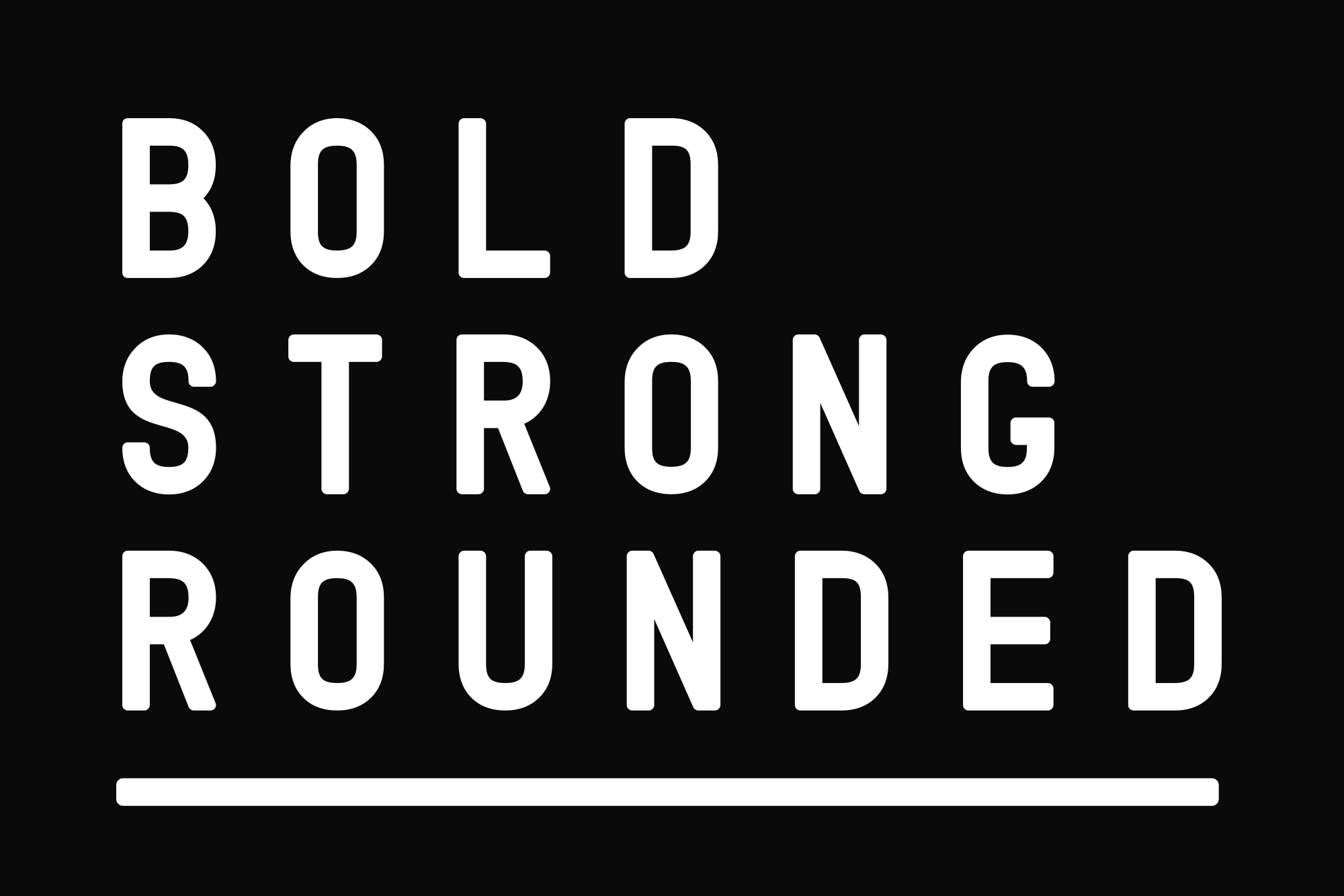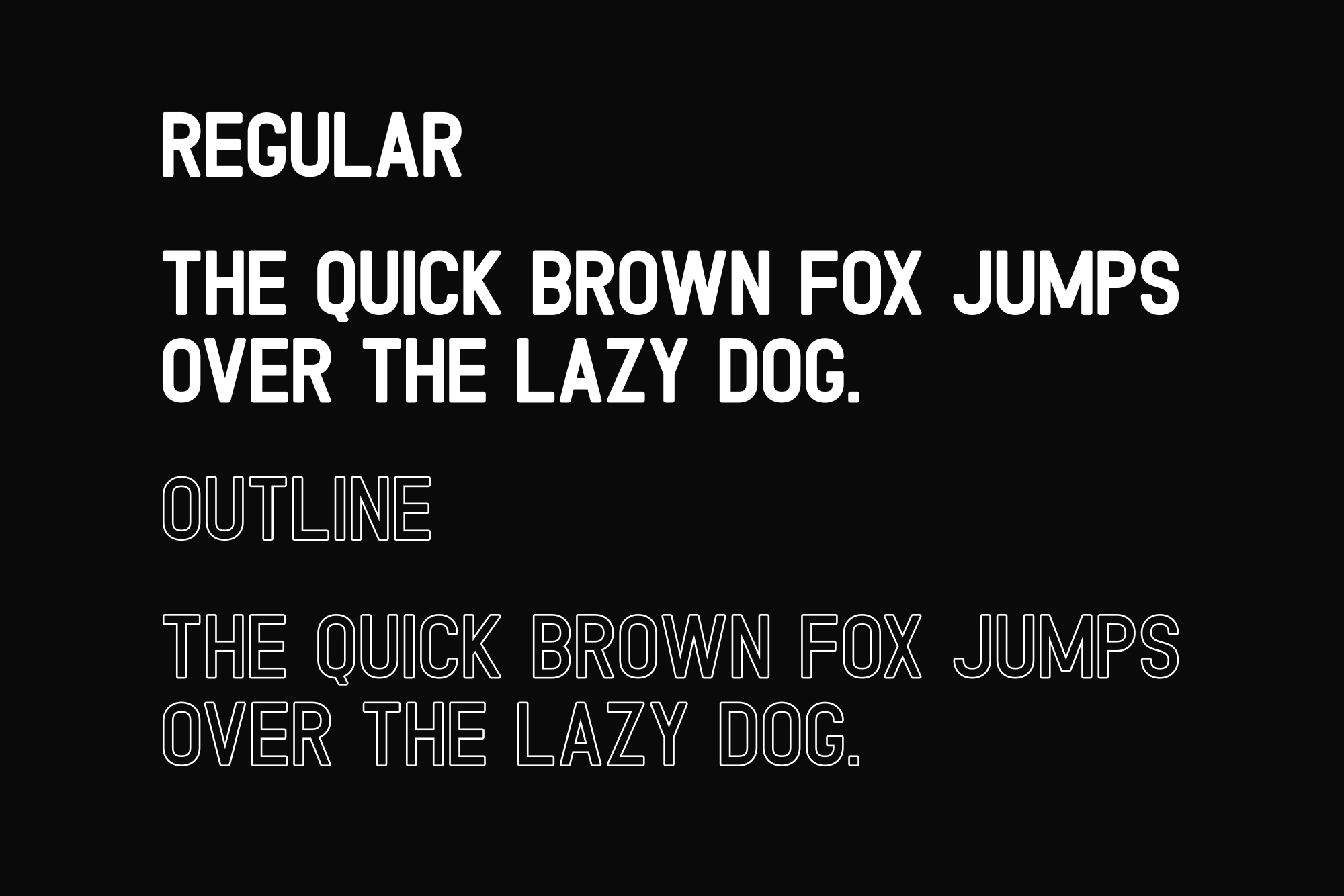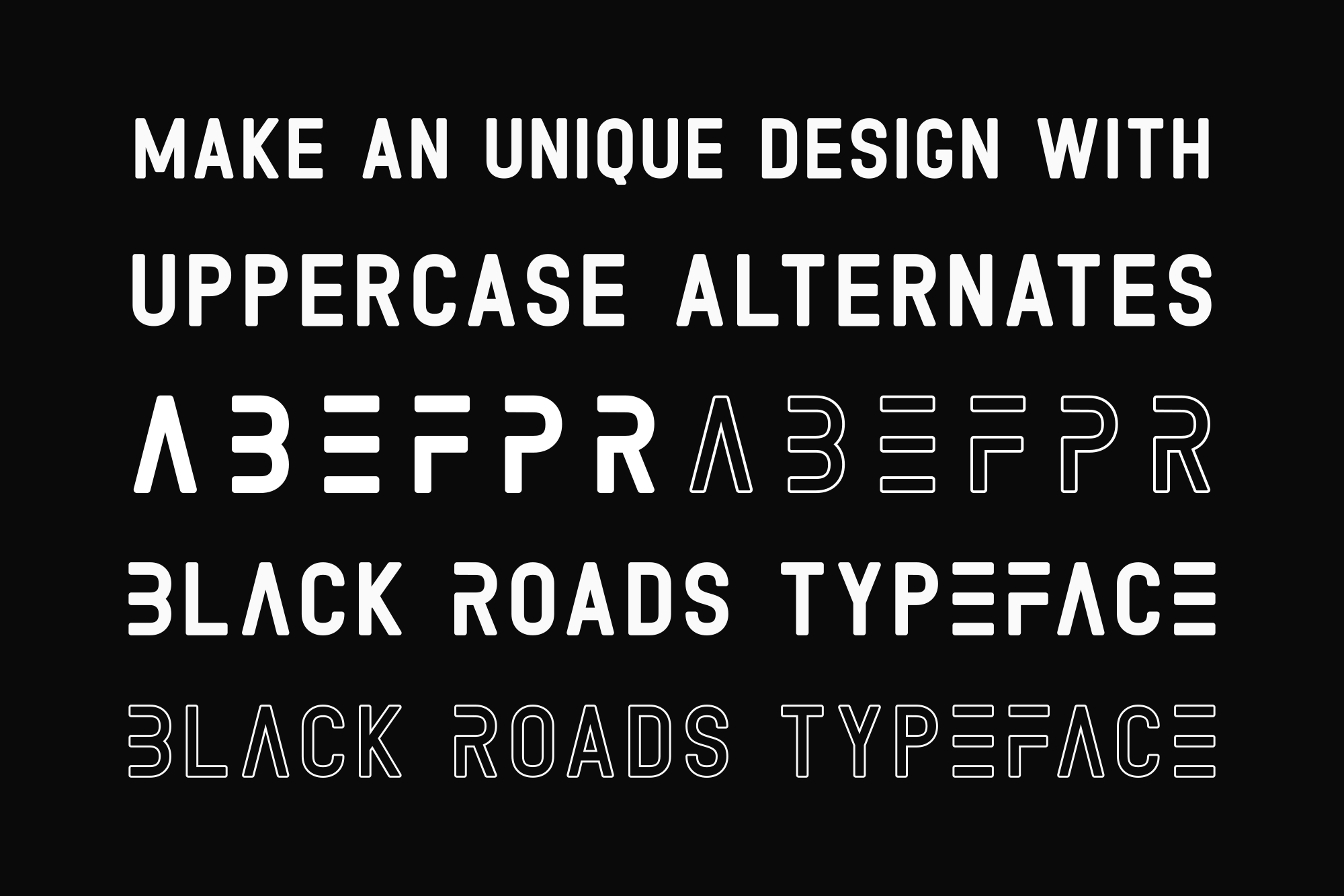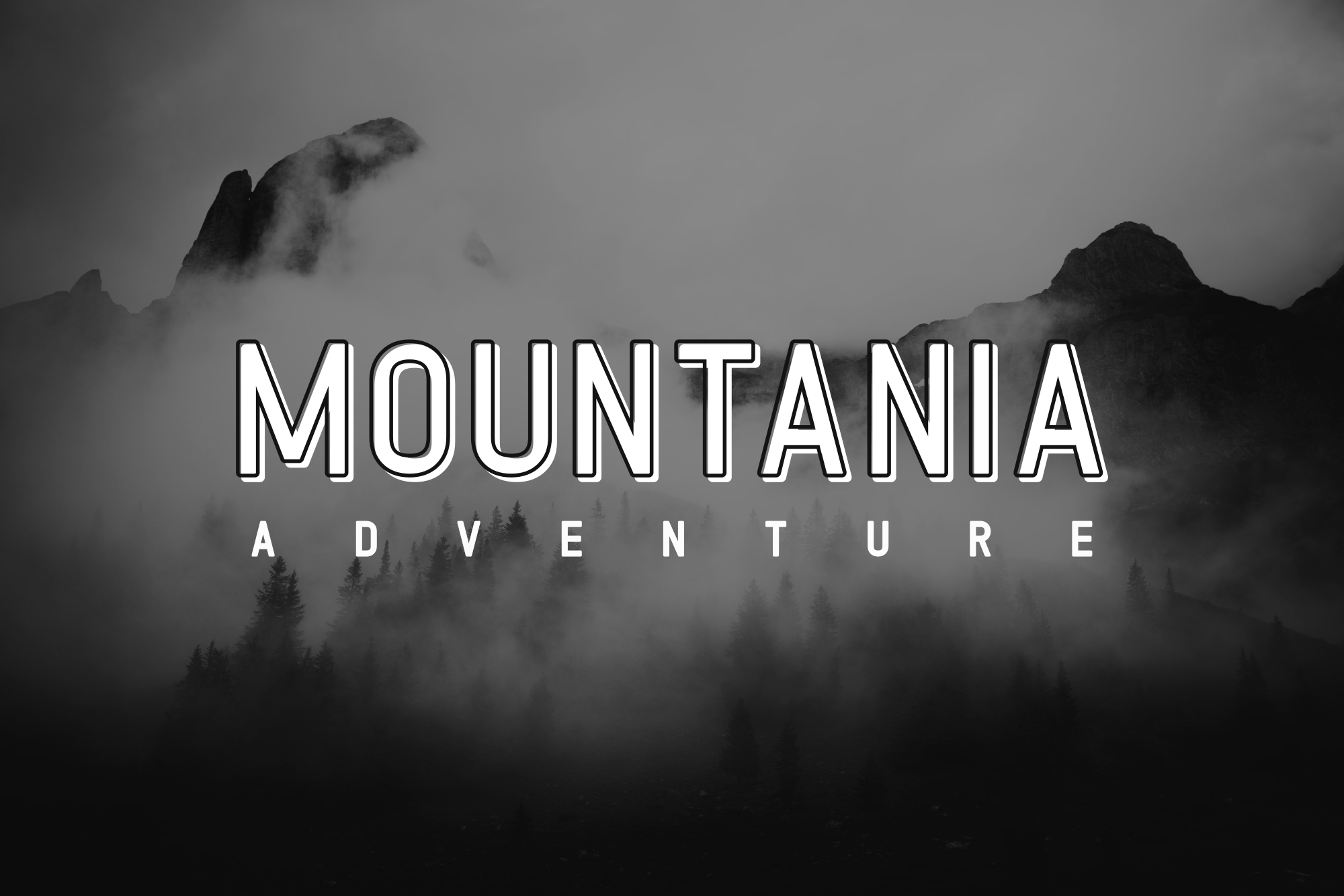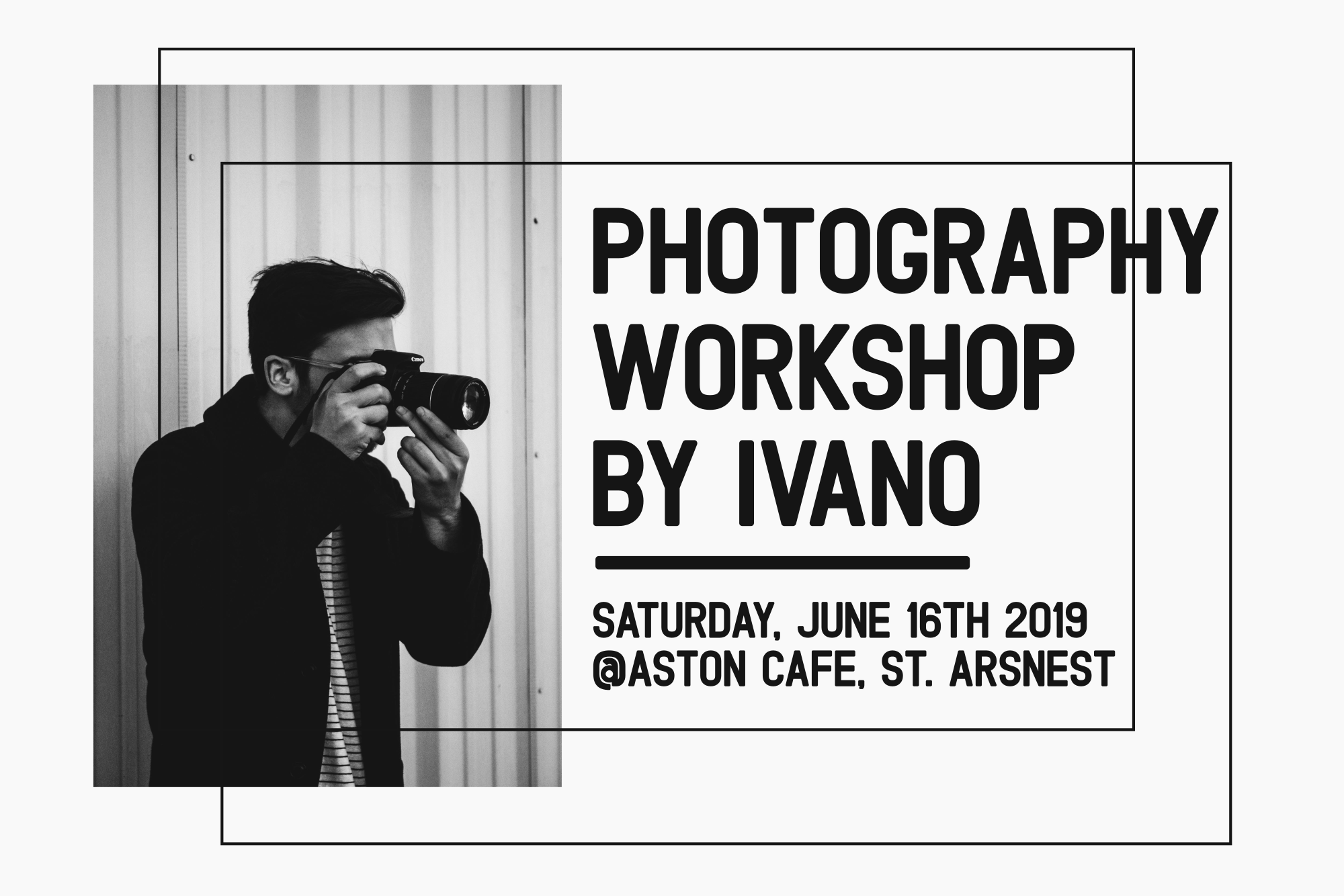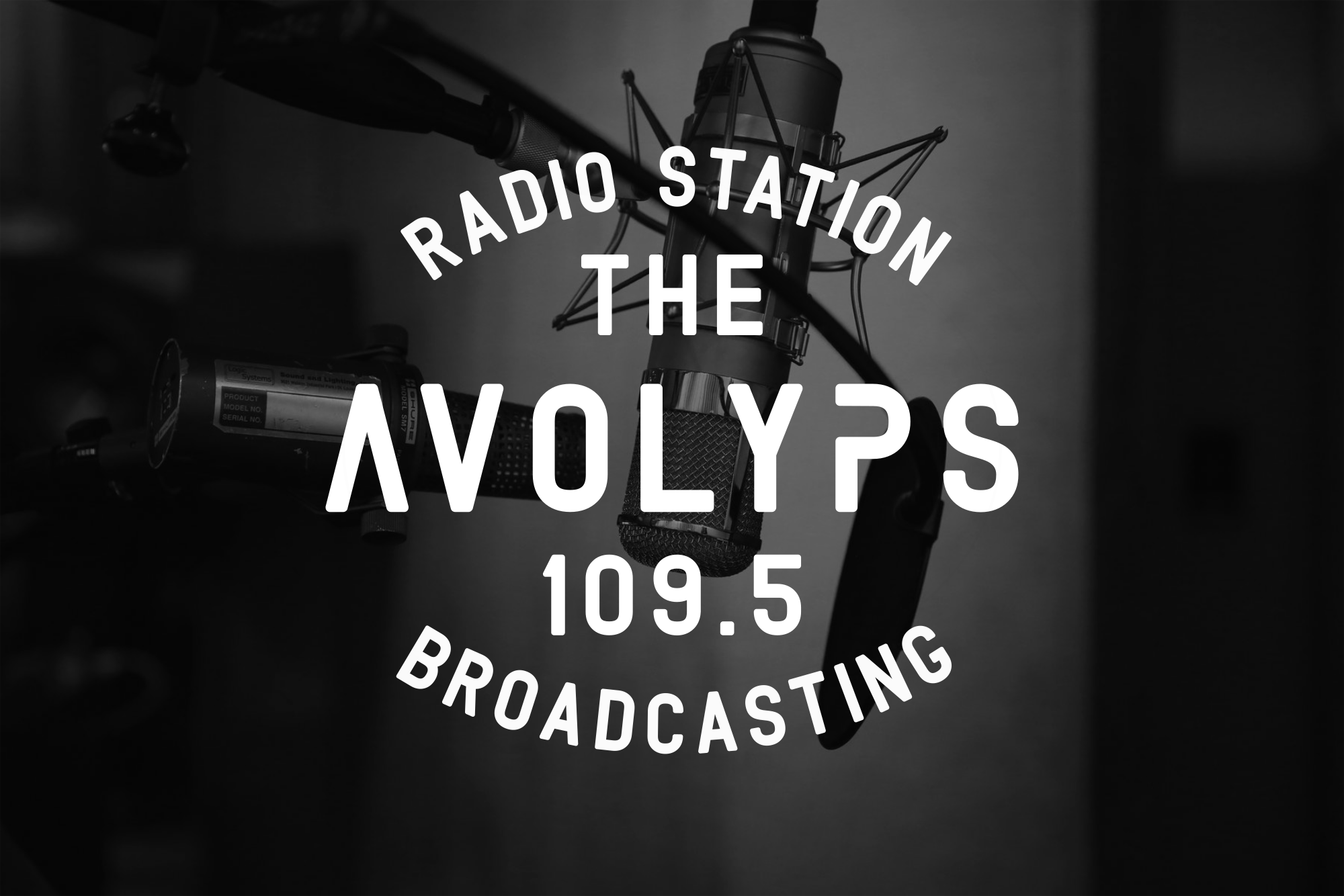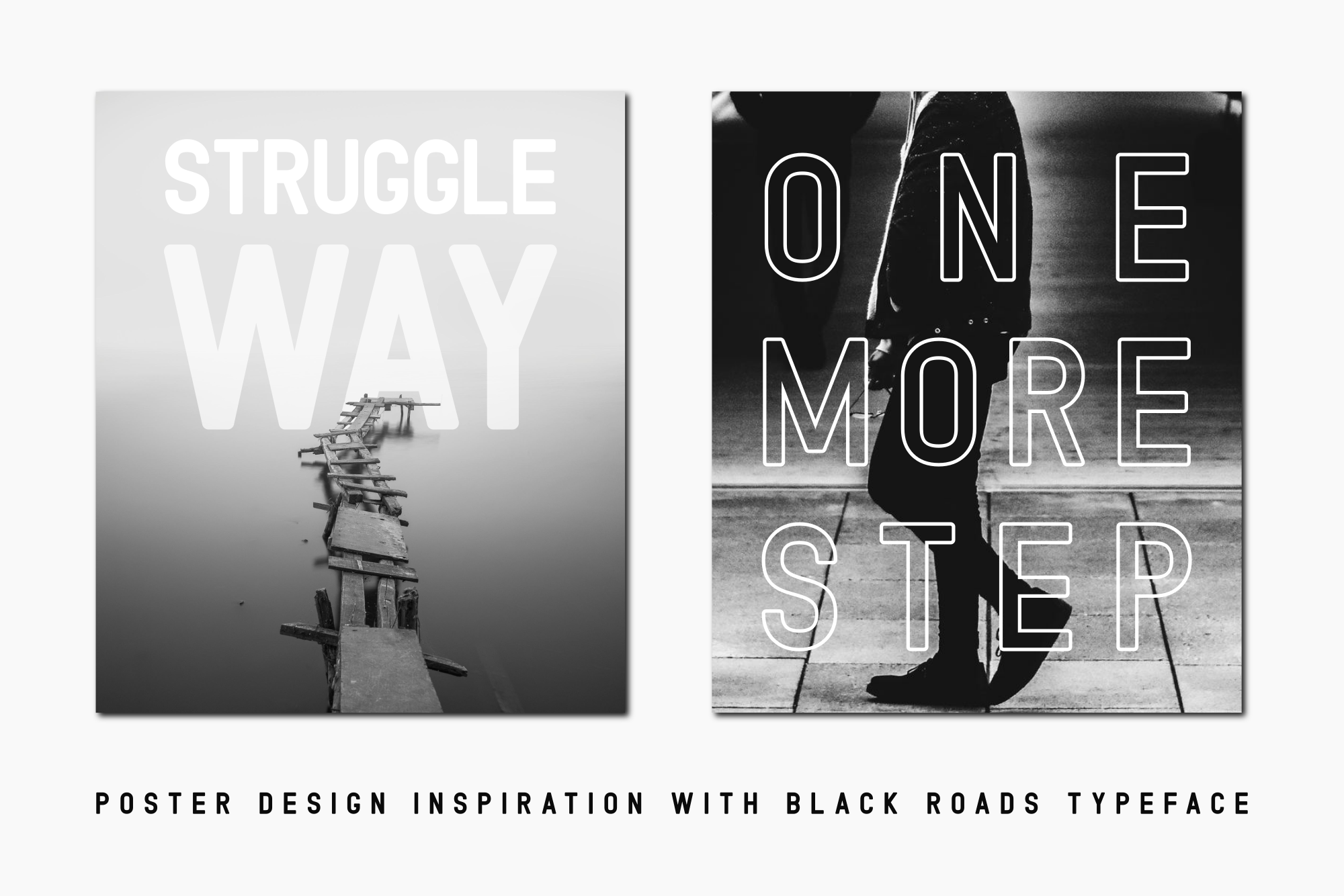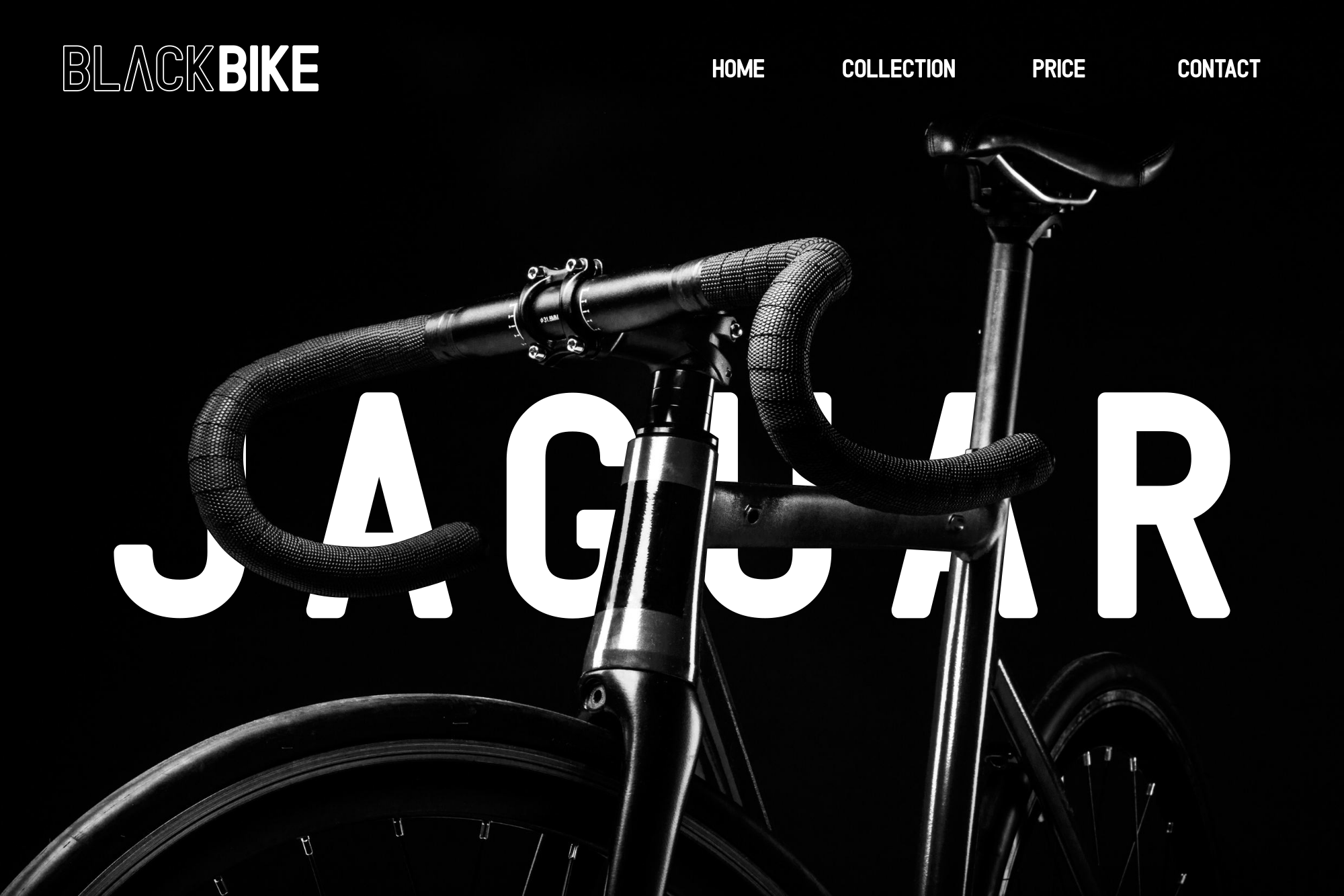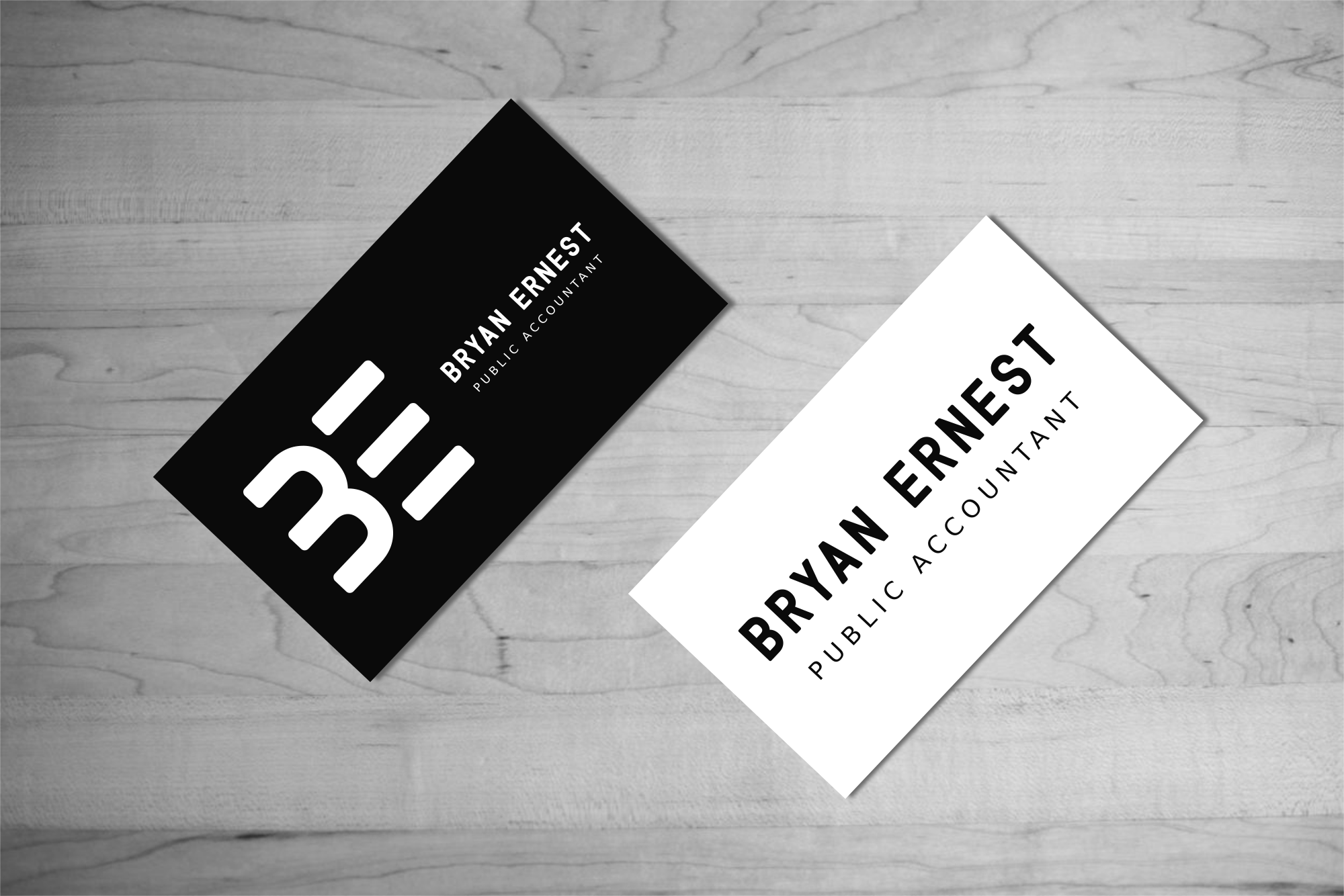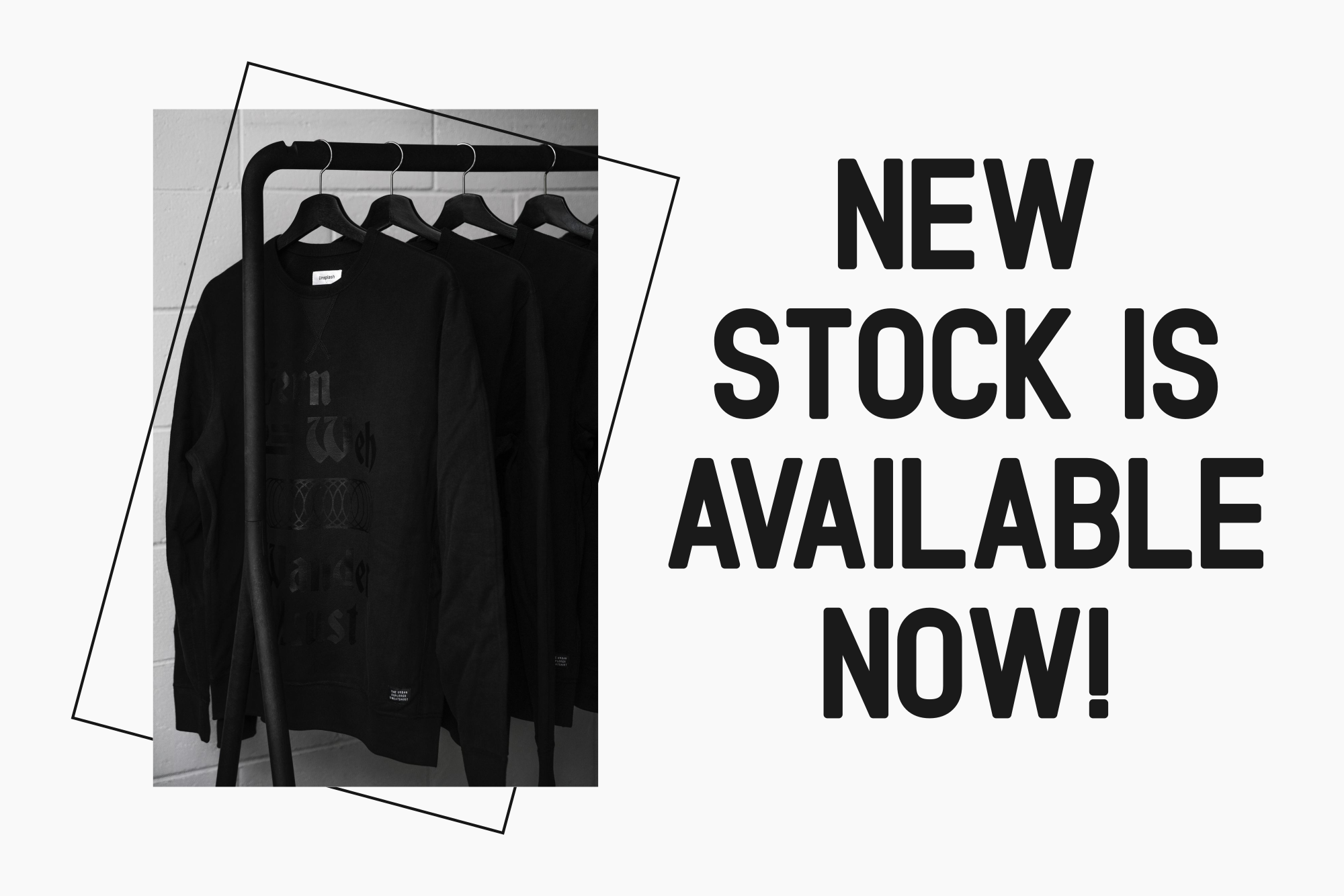
Black Roads - Bold Sans Serif Font
Black Roads is a clean and strong sans serif font available in regular and outline styles. It brings a bold, modern look to many design applications.
Black Roads is a clean and strong sans serif font available in regular and outline styles. It brings a bold, modern look to many design applications. It is a great choice for logos, branding, invitations, stationery, advertisements, labels, posters, and much more.
Logos, branding, packaging, posters, and editorial applications